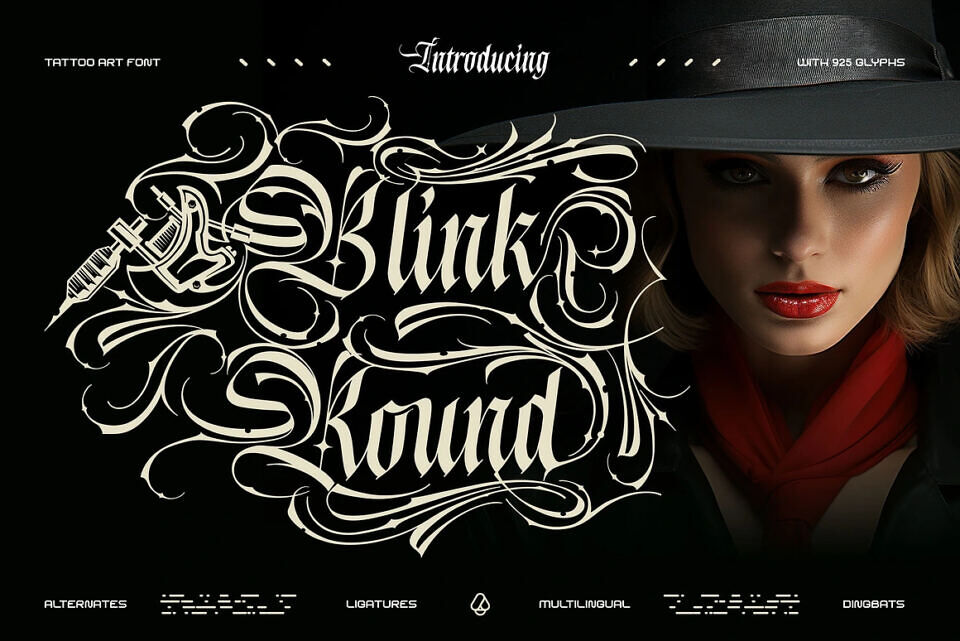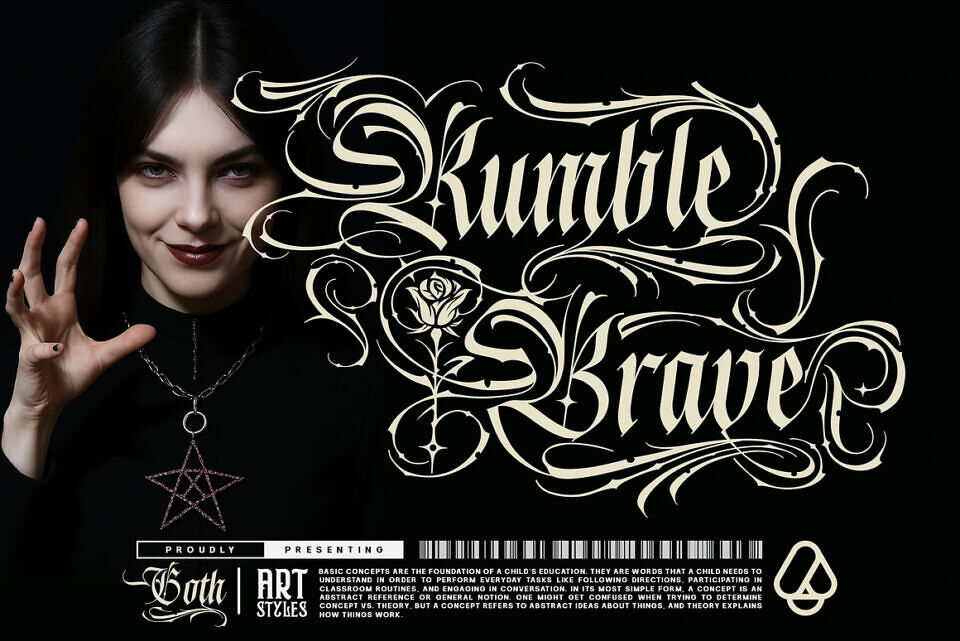
Blink Round Font
Blink Round is a fearless blackletter typeface forged in rebellion and tattoo artistry. Designed for creators who crave bold expression, this gothic-inspired script blends dark elegance with a handcrafted, aggressive edge. Each letter features thorn-like swashes and sharp strokes that command attention, while extensive alternates offer limitless customization.
Perfect for tattoo studios, streetwear brands, metal bands, and gothic posters, Blink Round delivers raw authenticity and striking visual impact. With thematic ornaments and full multilingual support, it’s the ultimate blackletter font for designs that demand power and personality.